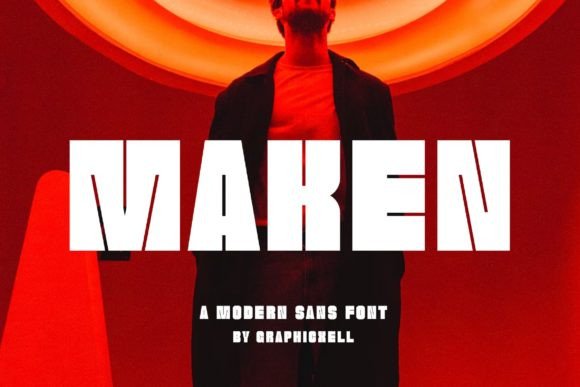
Journey into the realm of captivating typography with Maken Milky, a bold and contemporary sans serif font that radiates modernity and confidence. This masterpiece, crafted by the skilled hands at Graphicxell, is a visual symphony of clean lines, strong presence, and meticulous detailing, designed to capture attention and elevate your designs to new heights of sophistication.
Maken Milky's inherent charm lies in its ability to transform ordinary words into captivating statements. Its distinct characters and balanced spacing make it an ideal choice for headlines that demand attention, logos that exude professionalism, and striking visual elements that leave a lasting impression. Whether you're a seasoned designer or just starting your creative journey, Maken Milky is the perfect companion to unleash your imagination and create designs that resonate with your audience.
Immerse yourself in the versatility of Maken Milky, a font that effortlessly adapts to a myriad of design projects. Its bold and confident personality shines through in banner designs, adding a touch of drama and intrigue that captivates viewers. Unleash your creativity and craft social media posts that stand out from the crowd, with Maken Milky as your secret weapon. Transform presentations into visually engaging masterpieces that leave a lasting impact on your audience. The possibilities are endless, and Maken Milky is your key to unlocking a world of captivating designs.
With Maken Milky, you're not just downloading a font; you're embarking on a creative adventure, a journey into the realm of visual storytelling where boundaries are meant to be pushed. Its sleek and modern aesthetic seamlessly blends with your vision, allowing you to create designs that speak volumes without uttering a single word. Maken Milky is more than just a font; it's a gateway to a world of endless creative possibilities, where your imagination takes center stage.